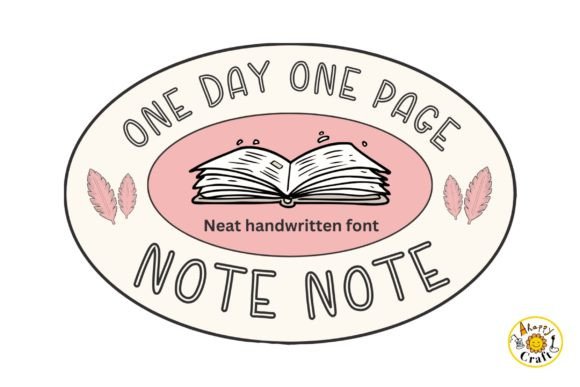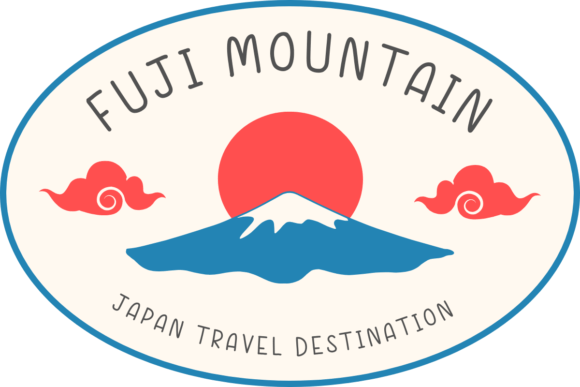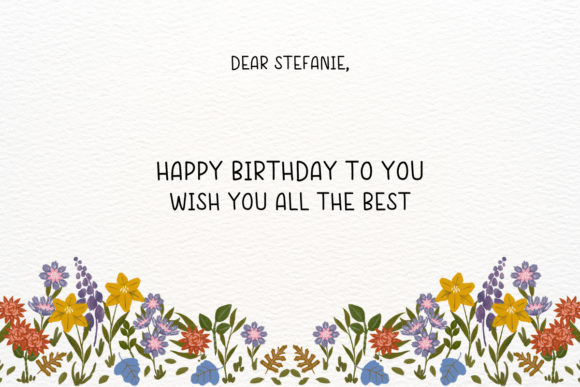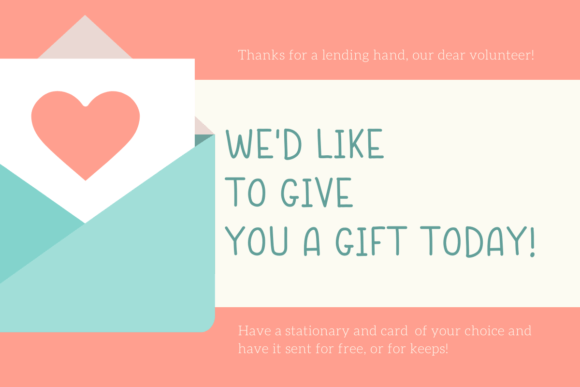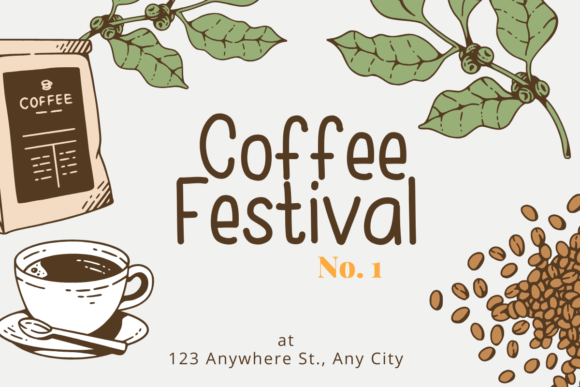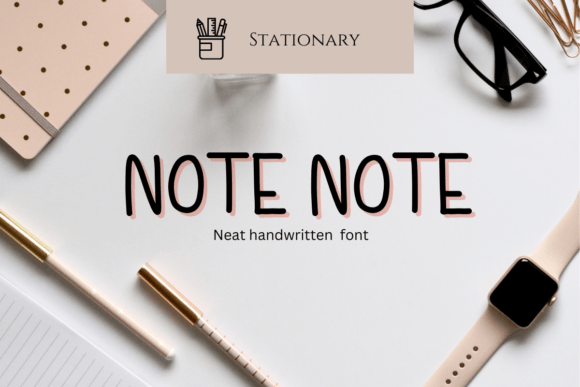
Introduction to Note Note Font Font
Fonts play a crucial role in design, and the Note Note Font font is a typeface that brings both character and versatility to any project. Whether you’re working on a branding project, a website, or a print design, the Note Note Font font offers a unique style that can elevate your work.
| 📌 Font Name | Note Note Font |
| 👤 Author | Ahappycraft |
Note Note is a sweet and friendly handwritten font.
Key Features of Note Note Font Font
Why Choose Note Note Font Font?
The Note Note Font font is more than just a typeface – it’s a design tool that helps you communicate your message with style and clarity. Its unique character set and versatile design make it suitable for a wide range of applications, from elegant invitations to bold headlines.
With its carefully crafted letterforms and balanced proportions, the Note Note Font font ensures readability and visual appeal across all mediums.
What makes Note Note Font font special?
The Note Note Font font stands out with its unique design, exceptional readability, and versatility across various design applications.